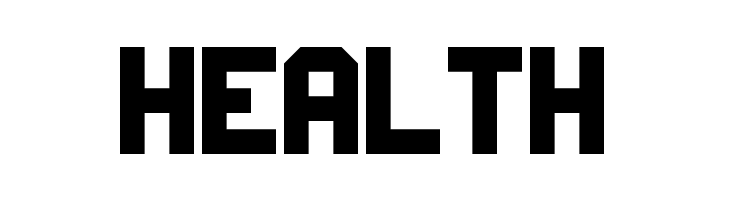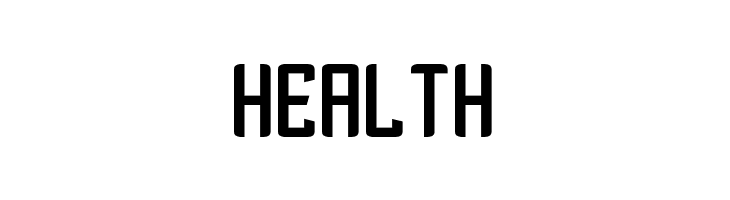
( Lettersiro Studio - Muhammad Sirojuddin - creativemarket.com/Lettersiro )
An elegant script font with flowing, cursive letterforms and intricate flourishes.
( Lettersiro Studio - Muhammad Sirojuddin - creativemarket.com/Lettersiro )
A bold, cursive font with smooth, connected lines and a handwritten feel.
( Lettersiro Studio - Muhammad Sirojuddin - creativemarket.com/Lettersiro )
A versatile font with decorative and bold sans-serif styles.
( Lettersiro Studio - Muhammad Sirojuddin - creativemarket.com/Lettersiro )
A bold, textured font with a playful, hand-drawn style.
( Muhammad Ridha Agusni )
A bold, gothic-style blackletter font with intricate detailing and sharp, angular lines.
( Muhammad Romzul Khoir )
A bold, modern font with geometric influences and clean lines.
( Nartz type )
A modern, handwritten font with elongated, fluid characters and artistic flair.
( Noschey! )
A playful, handwritten font with irregular strokes and a lively feel.
( Novian Fahrurriza - www.creativefabrica.com/designer/vianina/ )
An elegant, flowing script font with bold, cursive letterforms and decorative flourishes.
( Ojo Ngintype - www.creativefabrica.com/designer/jangan-ngintype/ )
An elegant script font with flowing, calligraphic style.
( Ojo Ngintype - www.creativefabrica.com/designer/jangan-ngintype/ )
A bold, geometric font with a modern, tech-inspired design.
( Ojo Ngintype - www.creativefabrica.com/designer/jangan-ngintype/ )
A flowing, cursive font with elegant, connected letters and a natural handwriting style.
( Ojo Ngintype - www.creativefabrica.com/designer/jangan-ngintype/ )
A whimsical and elegant script font with flowing, interconnected letters.
( Ojo Ngintype - www.creativefabrica.com/designer/jangan-ngintype/ )
A cursive, handwritten font with elegant, flowing lines and interconnected letters.
( Outline Studio - www.creativefabrica.com/ref/184555/ )
A playful, handwritten font with dynamic and flowing letterforms.
( Rengga Eka Zulkarnaen - www.behance.net/kamigawietd2f7 )
A sophisticated handwritten script with fluid, cursive strokes.
( Rengga Eka Zulkarnaen - www.behance.net/kamigawietd2f7 )
A dynamic, handwritten font with a casual and energetic style.
( Rizalul Ammar )
An elegant script font with graceful curves and ornate flourishes.
( Roch Art )
A bold, brush-style font with an artistic, hand-drawn appearance.
( Roch Art )
A dynamic, expressive handwritten font with rough, textured strokes.
( Roch Art )
A graceful script font with flowing, interconnected letters and bold numerals.
( Roch Art )
A playful and whimsical handwritten font with dynamic strokes.
( Roch Art )
An elegant script font with flowing, interconnected letters and ornate flourishes.
( Roch Art )
An elegant, cursive font with intricate loops and sweeping curves.
( Roch Art )
An elegant, flowing script font with a handwritten style and delicate line work.
( Roch Art )
A dynamic and elegant script font with flowing, cursive letterforms.
( Rometheme - Yahdi Kumala - creativemarket.com/Rometheme?u=Rometheme )
A dynamic, flowing script font with elegant cursive strokes.
( Rometheme - Yahdi Kumala - creativemarket.com/Rometheme?u=Rometheme )
A dynamic, edgy font with sharp, jagged edges and a hand-drawn style.
( Rometheme - Yahdi Kumala - creativemarket.com/Rometheme?u=Rometheme )
A modern, geometric outline font with a futuristic aesthetic.
( Rometheme - Yahdi Kumala - creativemarket.com/Rometheme?u=Rometheme )
A bold, playful handwritten font with rounded strokes and a dynamic slant.
( Rometheme - Yahdi Kumala - creativemarket.com/Rometheme?u=Rometheme )
A casual, handwritten-style font with elongated, fluid strokes.
( Rometheme - Yahdi Kumala - creativemarket.com/Rometheme?u=Rometheme )
A bold, energetic script font with a dynamic, handwritten style.
( Rometheme - Yahdi Kumala - creativemarket.com/Rometheme?u=Rometheme )
A dynamic, cursive script font with a fluid, handwritten style.
( Rometheme - Yahdi Kumala - creativemarket.com/Rometheme?u=Rometheme )
An elegant script font with flowing, ornate cursive letters and intricate swashes.
( Rometheme - Yahdi Kumala - creativemarket.com/Rometheme?u=Rometheme )
A bold, brush-style font with high contrast and dynamic strokes.